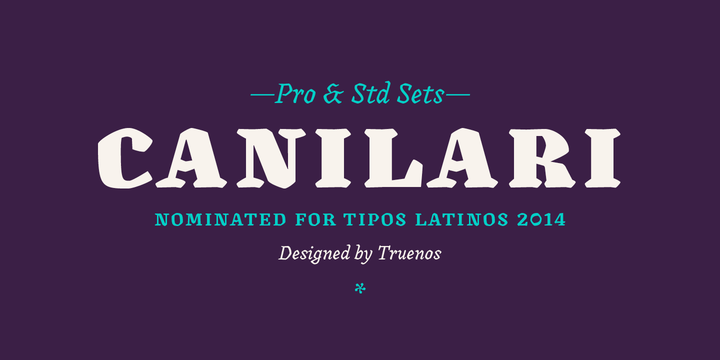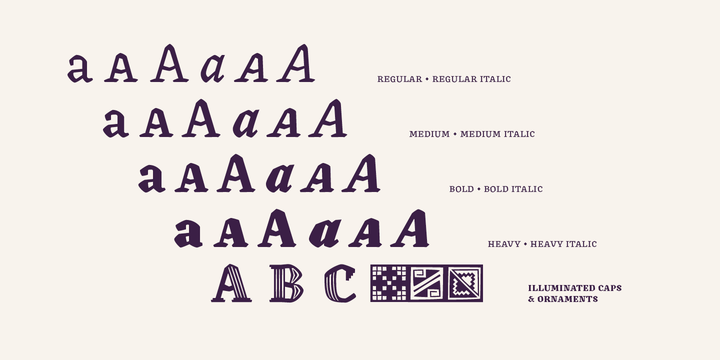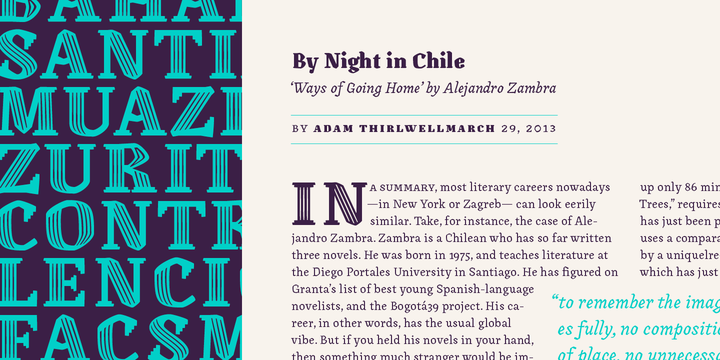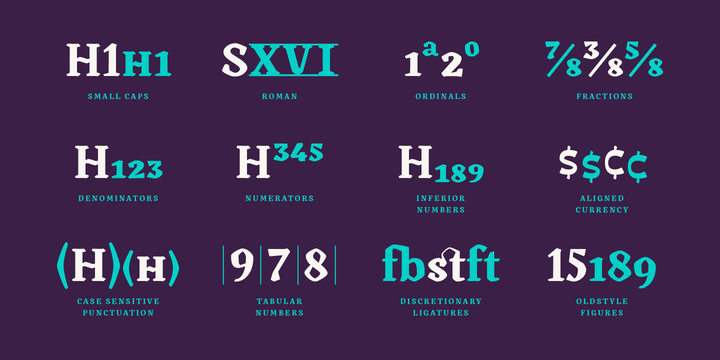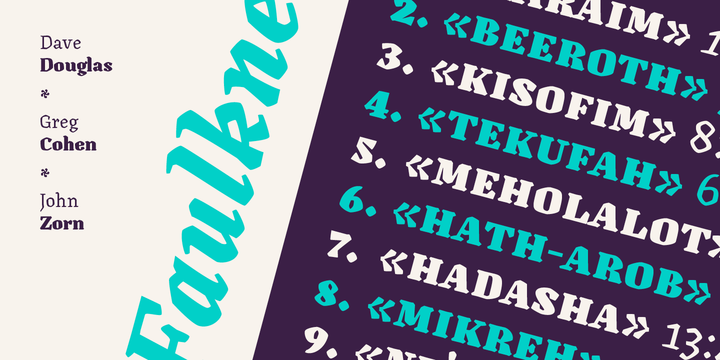
Canilari
Canilari Font
Canilari Font Family
Canilari is a post-modern type family inspired by contemporary serif typefaces. Its intense and consistent personality makes it a functional font for a wide range of uses: from continuous text in the most challenging environments to pithy, high-impact headlines.